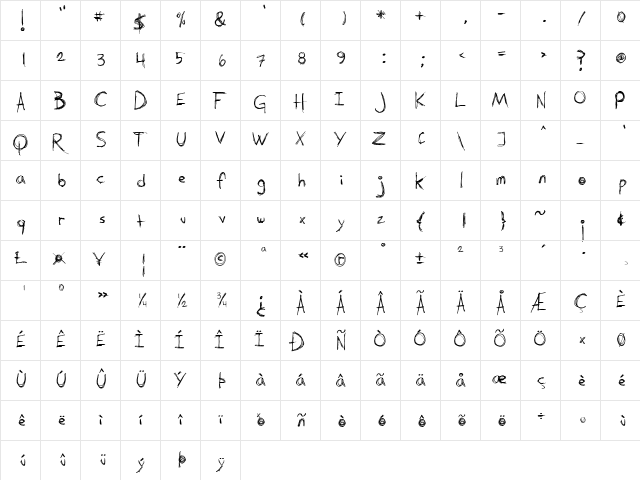
I KNOW A GHOST Regular
| Foundry | Dismantle Destroy |
| Designer | Matthew Tyndall |
Design Context for I KNOW A GHOST Typeface
I KNOW A GHOST is a composed and adaptable typeface that performs quietly and consistently across a wide range of design contexts.